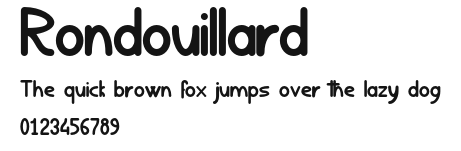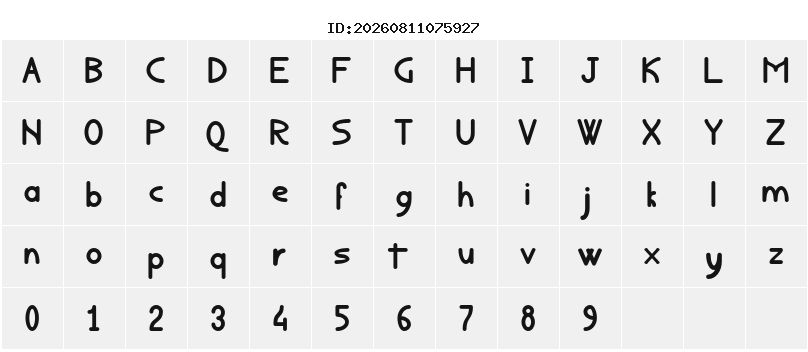
About Rondouillard.ttf
Rondouillard.ttf is a modern, elegant sans-serif font designed for ultimate readability and visual harmony. Perfect for branding, headlines, web design, and print materials.